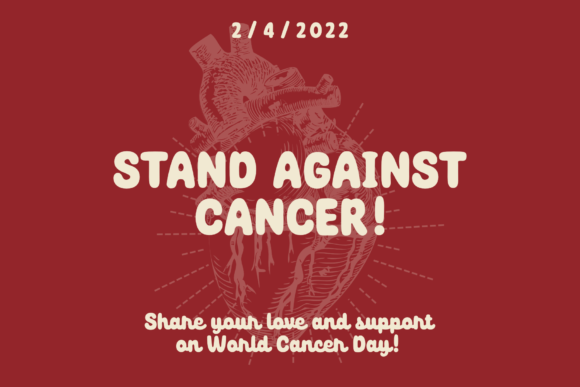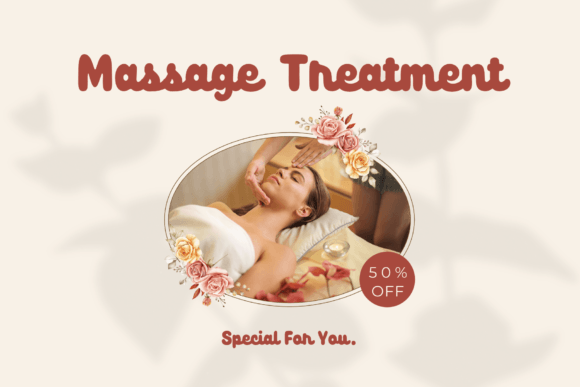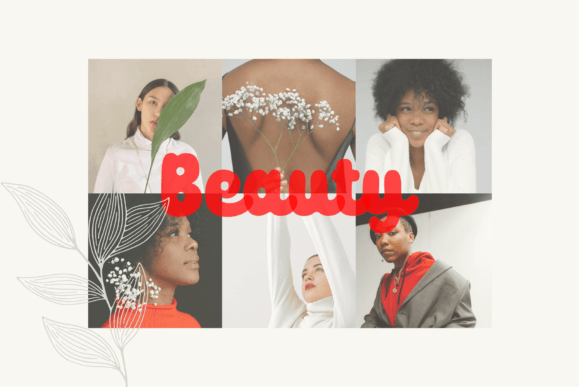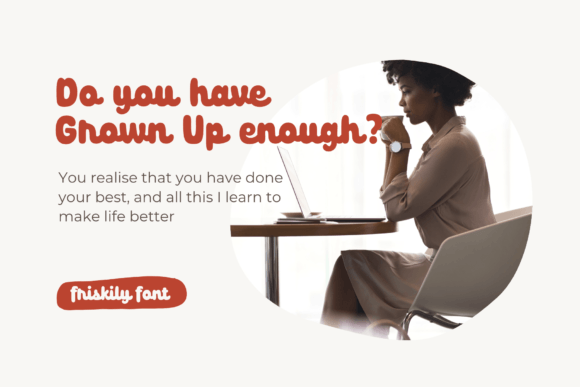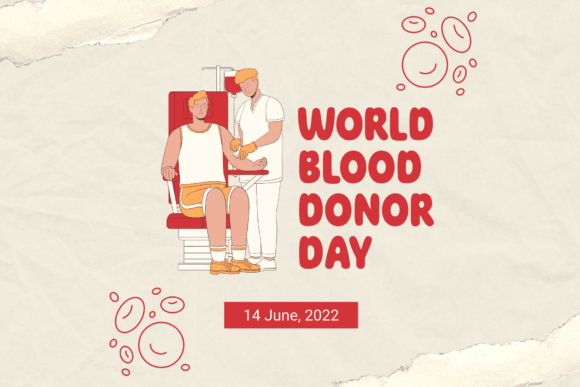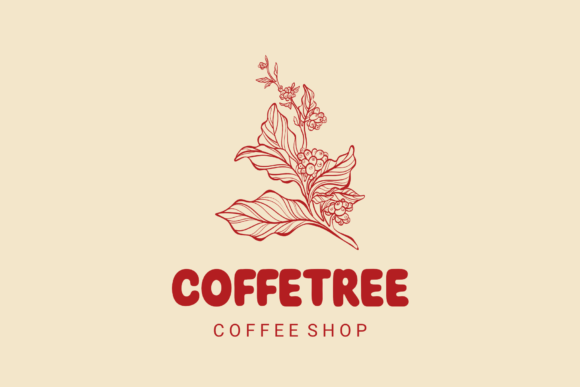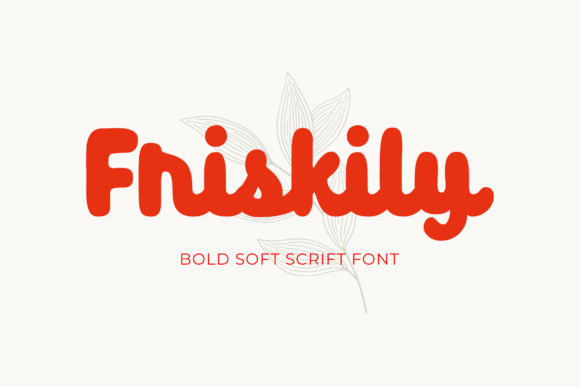
Introducing Friskily Font: The Perfect Blend of Softness and Boldness
Are you tired of using the same old fonts for your designs? Look no further! Friskily Font is here to revolutionize the way you create headlines, magazines, logos, and branding materials. This soft and bold handwritten font is the perfect addition to your typography collection, and we’re excited to dive into its amazing features.
A Simple Retro Vibe
Friskily Font boasts a simple retro vibe that’s sure to capture the attention of your audience. Its unique blend of softness and boldness makes it perfect for a wide range of design applications. Whether you’re creating a vintage-inspired logo or a modern magazine cover, Friskily Font is the perfect choice. Its retro charm will add a touch of nostalgia to your designs, making them stand out in a crowded market.
Friskily Font is incredibly versatile, making it suitable for a wide range of design projects. Here are just a few ideas to get you started:
- Headlines: Use Friskily Font to create eye-catching headlines that grab attention and draw readers in.
- Magazines: Add a touch of personality to your magazine covers, articles, and advertisements with Friskily Font.
- Logos: Create a unique and memorable logo for your brand with Friskily Font’s bold and playful style.
- Branding: Use Friskily Font to develop a consistent brand identity across all your marketing materials.
- Crafting: Friskily Font is also perfect for crafters who want to add a personal touch to their projects, such as handmade cards, scrapbooking, and DIY signage.
Why Choose Friskily Font?
With so many fonts available, why choose Friskily Font? Here are just a few reasons why designers and crafters love this amazing font:
- Unique Style: Friskily Font has a one-of-a-kind style that’s sure to make your designs stand out.
- Easy to Read: Despite its bold and playful style, Friskily Font is incredibly easy to read, making it perfect for body text and headlines.
- Highly Versatile: Friskily Font can be used for a wide range of design applications, from digital projects to print materials.
- Retro Charm: Friskily Font’s retro vibe adds a touch of nostalgia to your designs, making them more engaging and memorable.
Tips for Using Friskily Font
To get the most out of Friskily Font, here are a few tips to keep in mind:
- Experiment with Colors: Friskily Font looks amazing in a wide range of colors, so don’t be afraid to experiment and find the perfect hue for your design.
- Mix and Match: Combine Friskily Font with other fonts to create a unique and visually appealing typography style.
- Pay Attention to Spacing: Make sure to adjust the spacing between letters and words to ensure your text is easy to read and visually appealing.
Friskily Font is an amazing addition to any designer’s or crafter’s typography collection. Its unique blend of softness and boldness, combined with its simple retro vibe, makes it perfect for a wide range of design applications. Whether you’re creating headlines, magazines, logos, or branding materials, Friskily Font is sure to make your designs stand out. So why wait? Download Friskily Font today and start creating amazing designs that capture the attention of your audience!